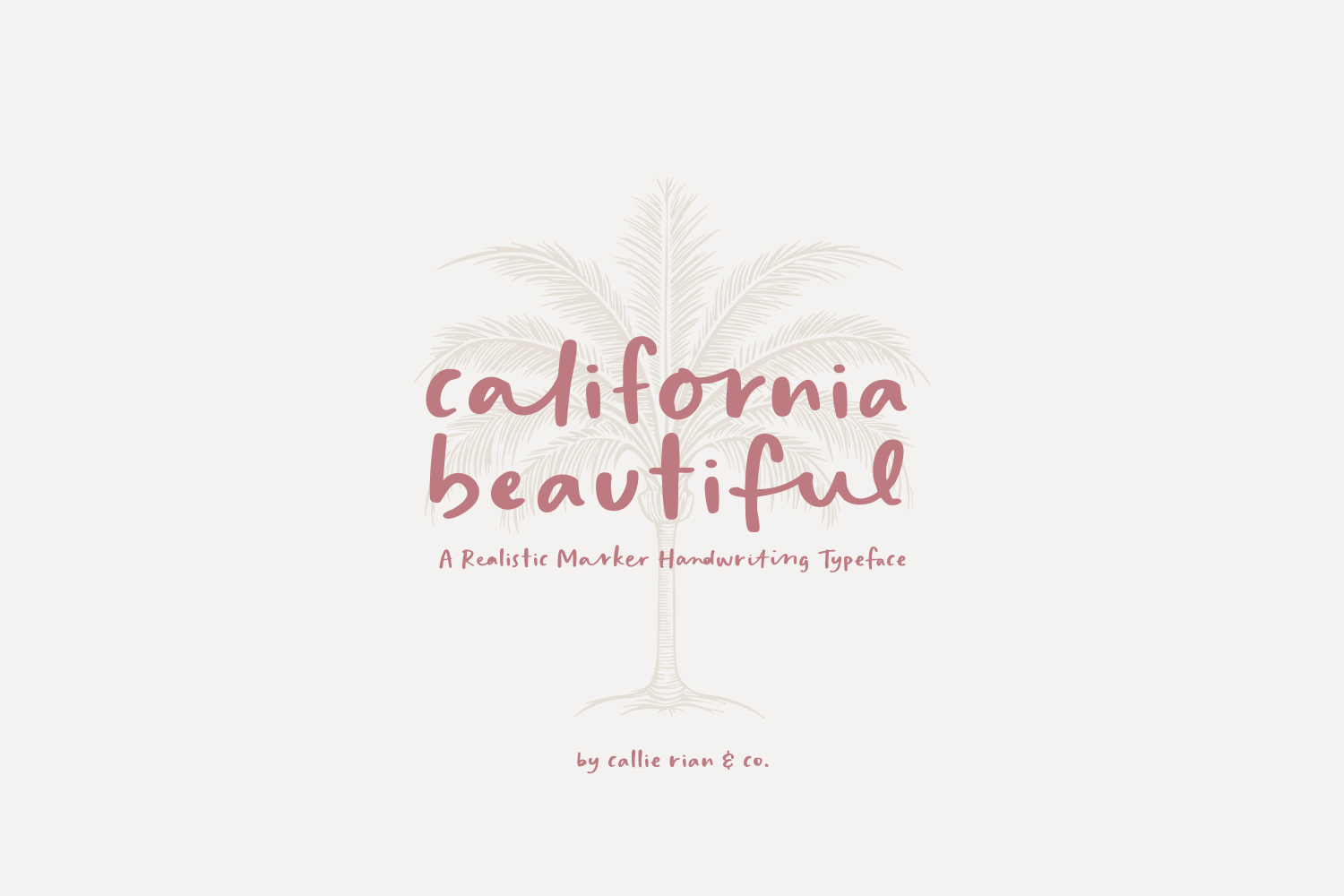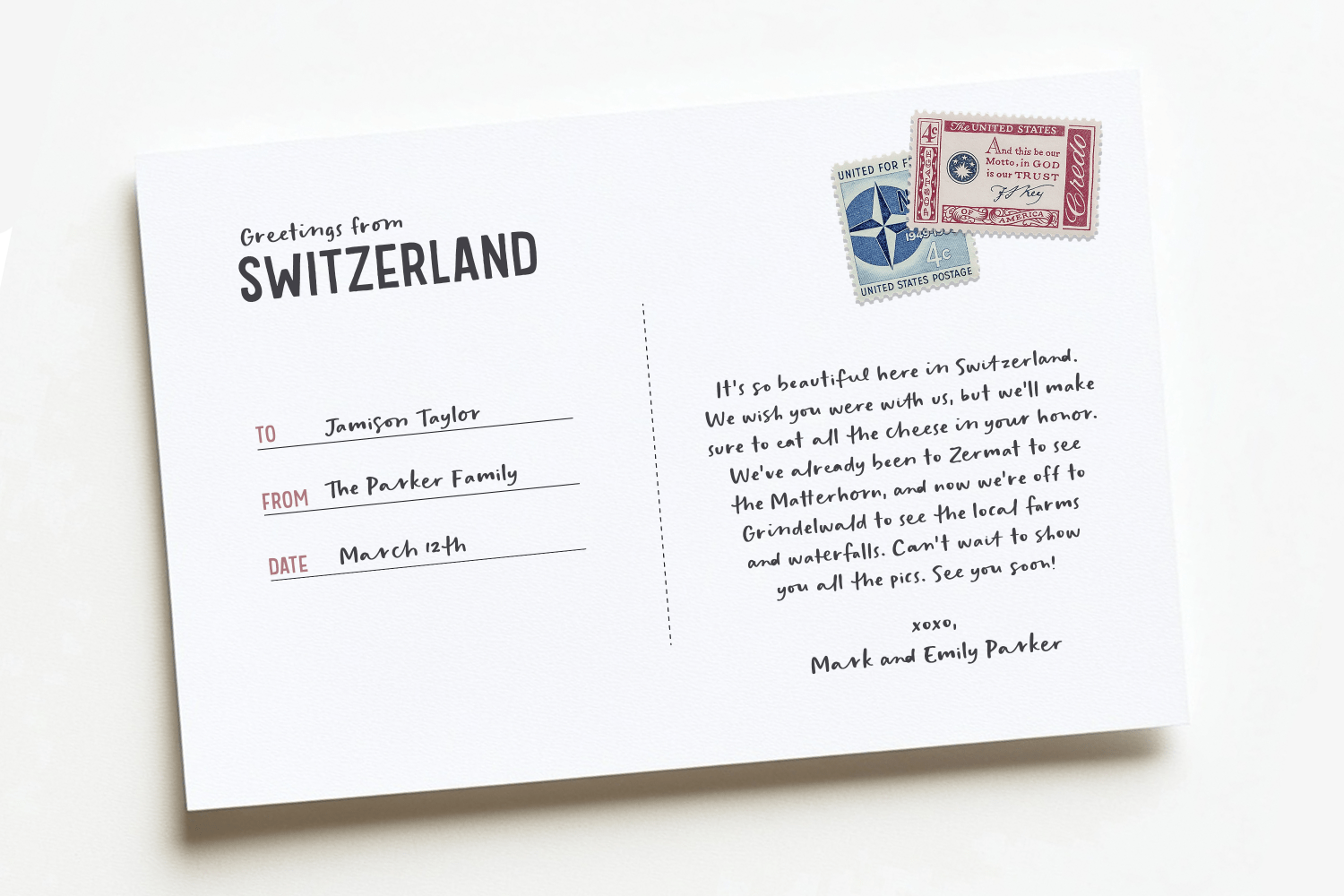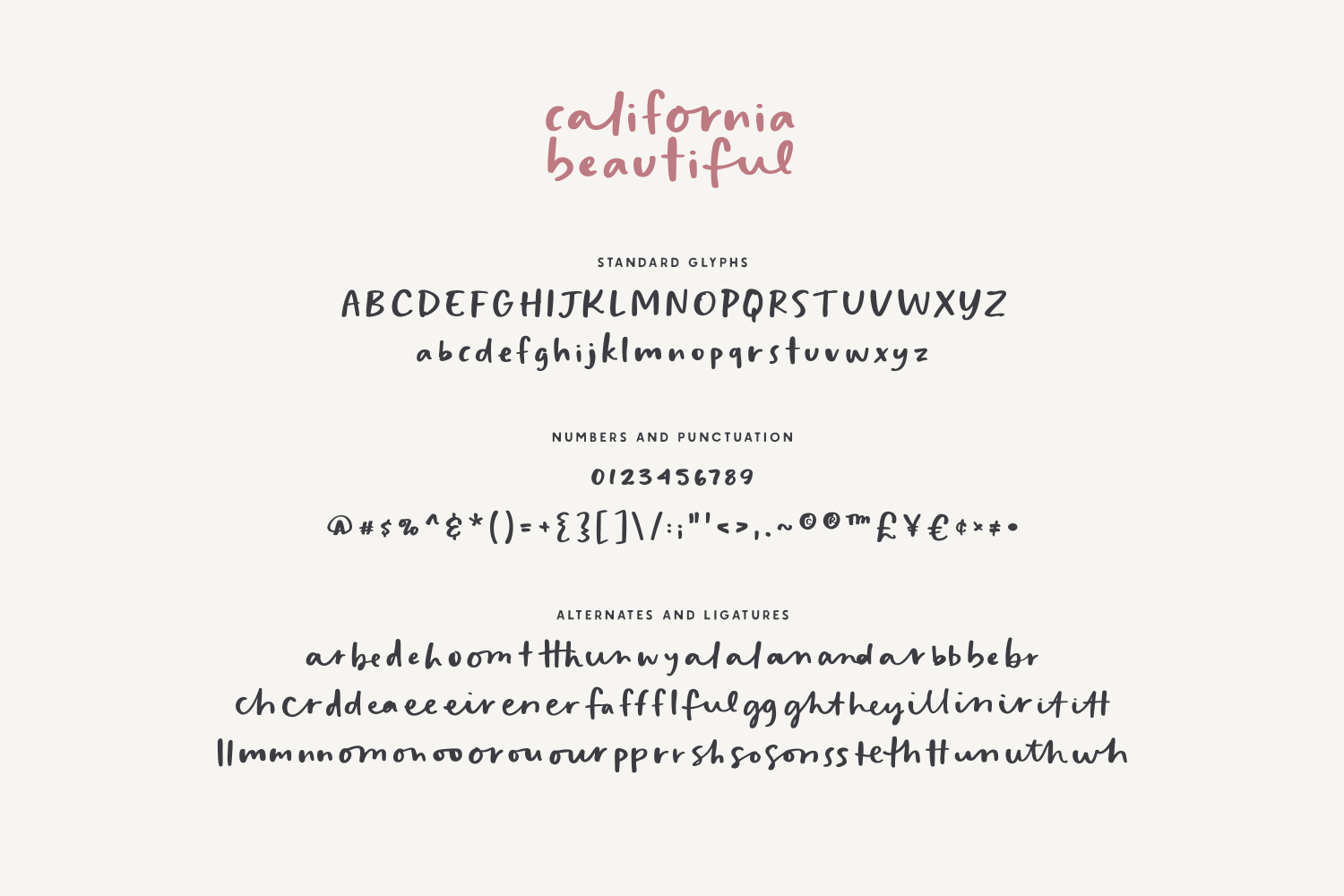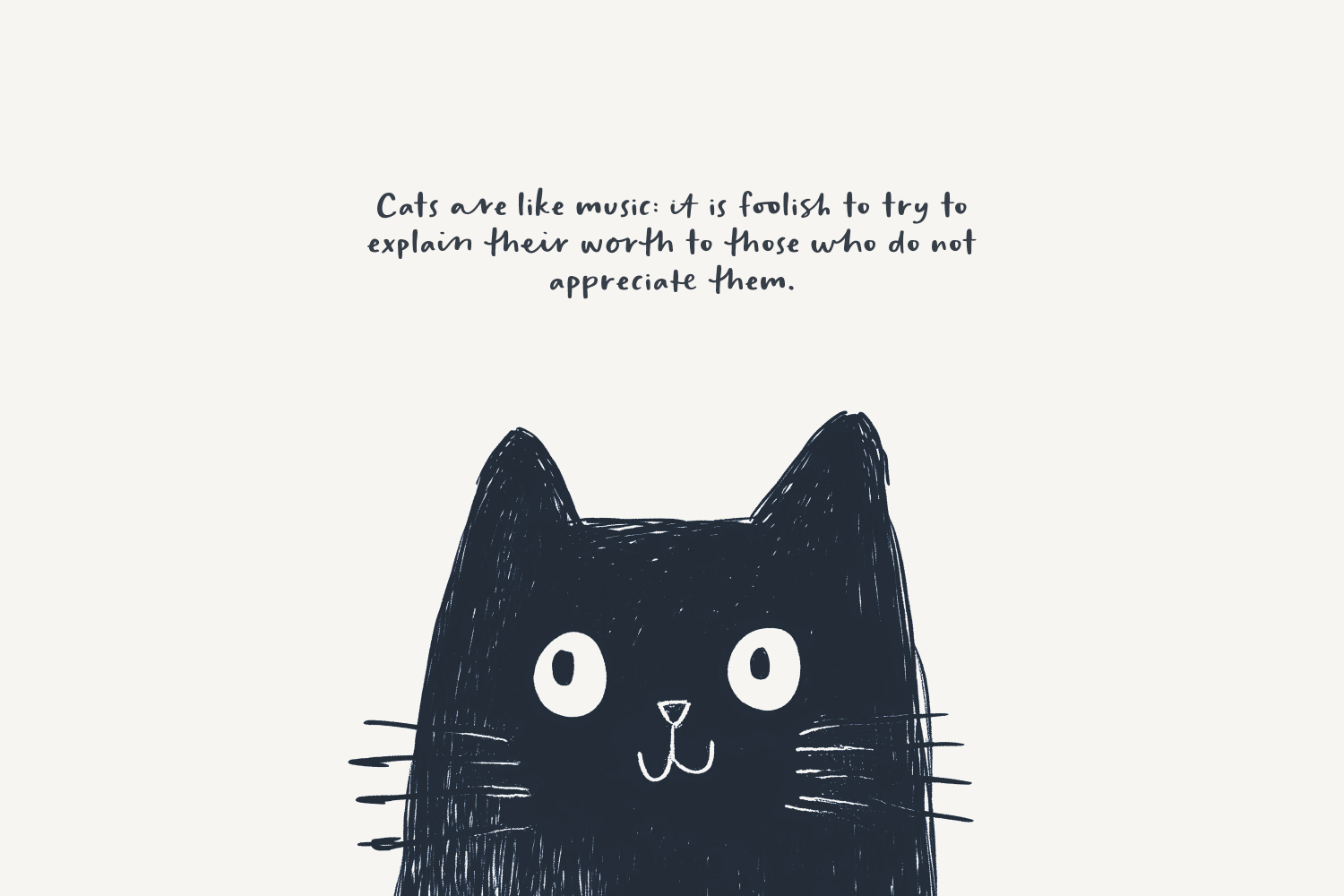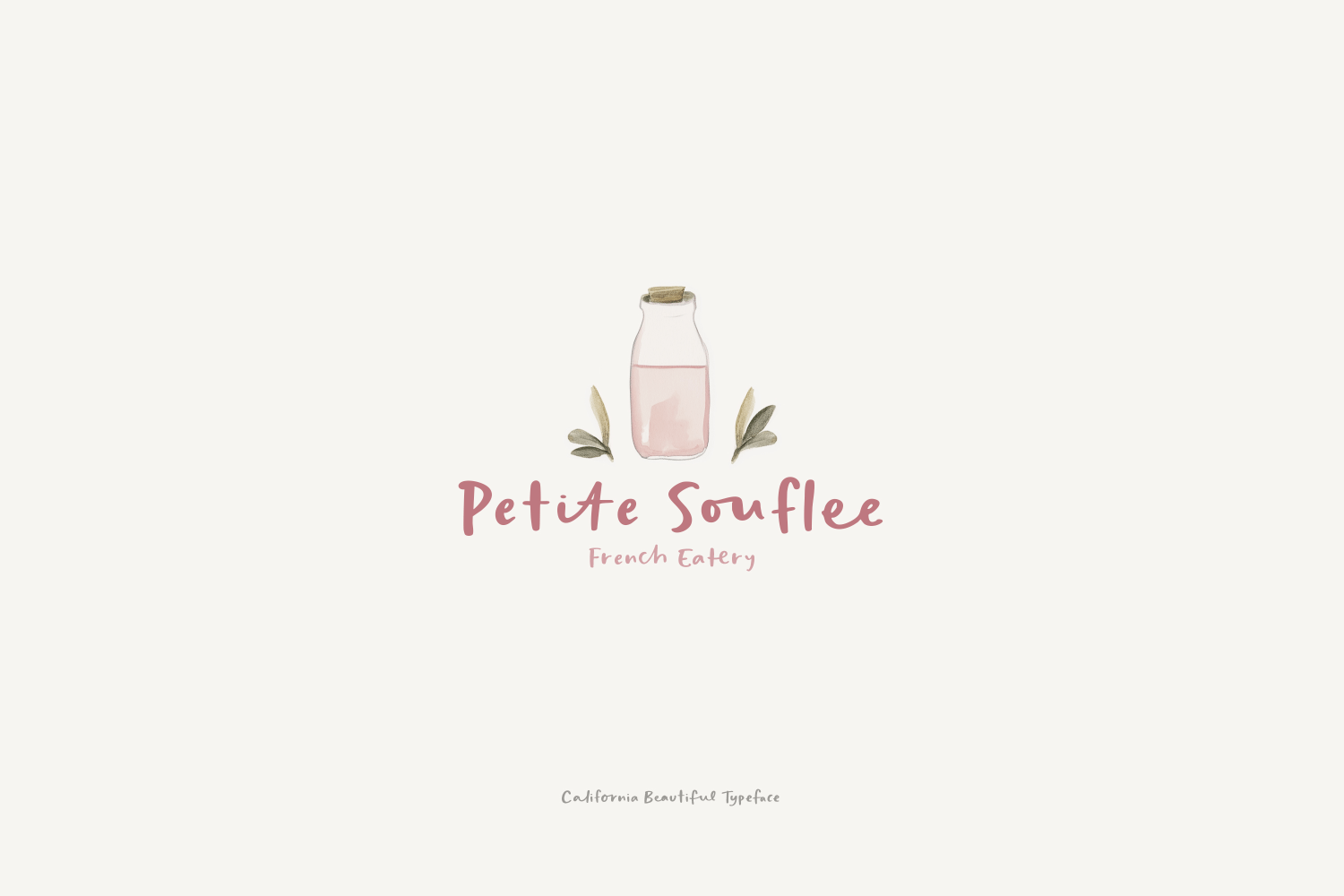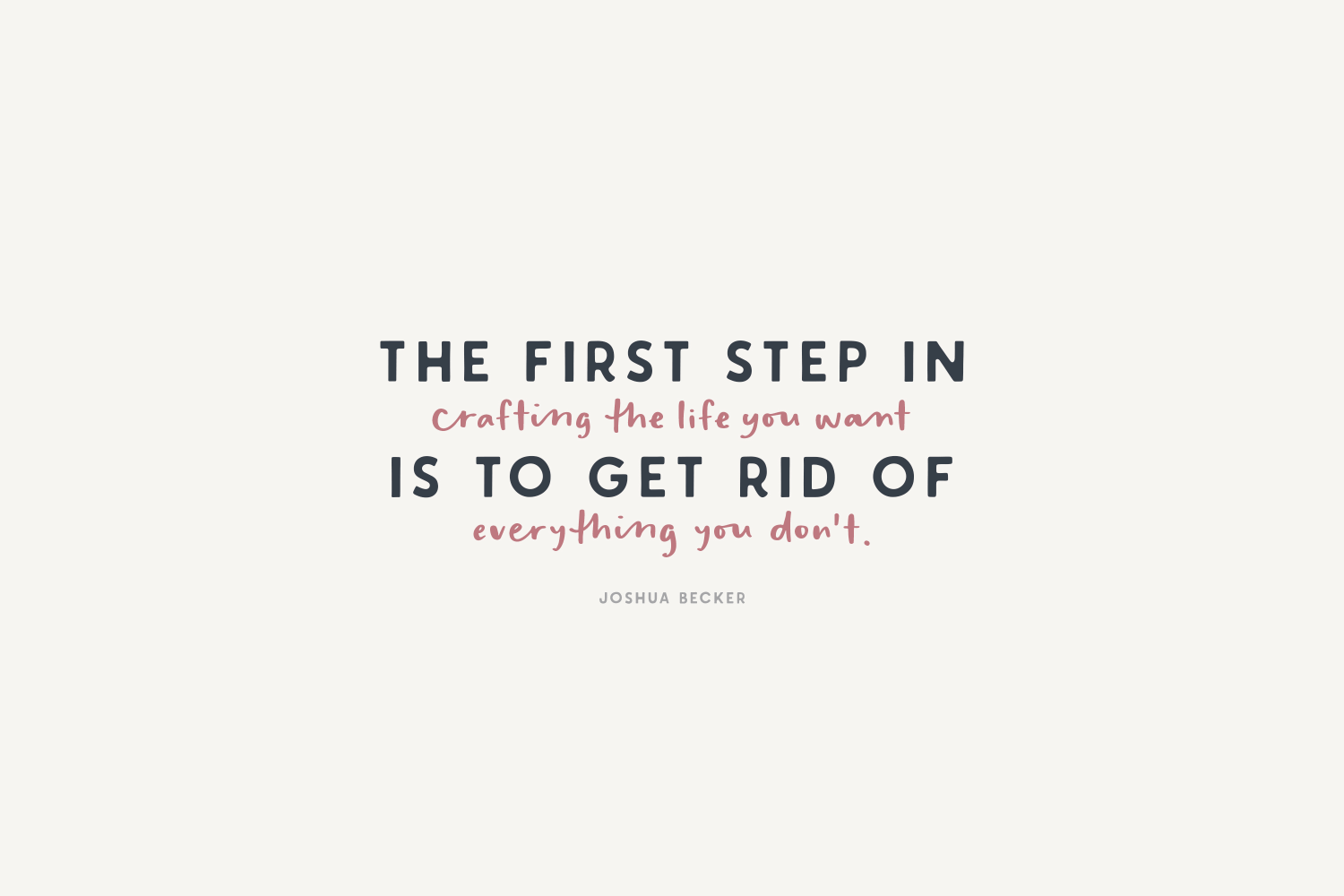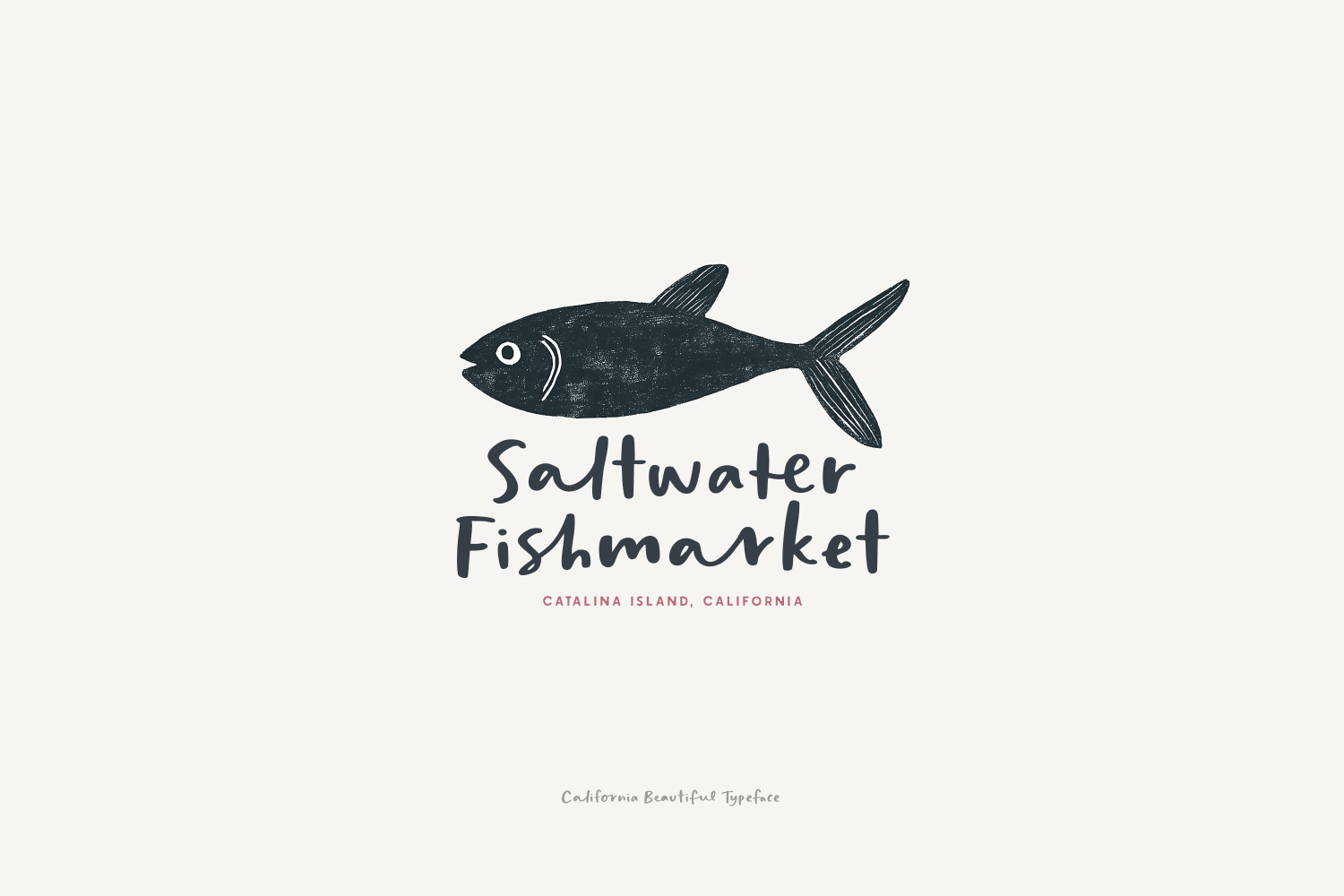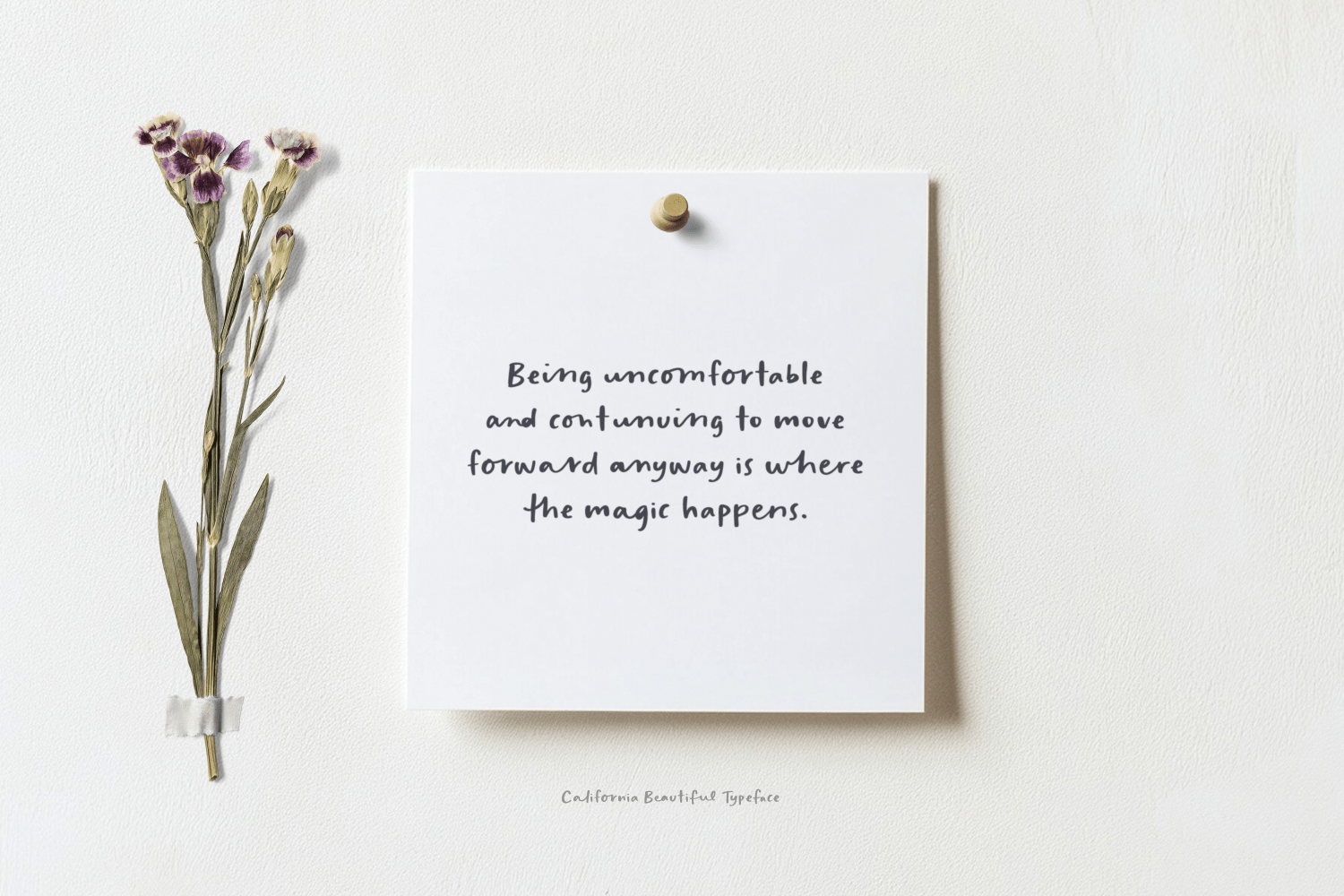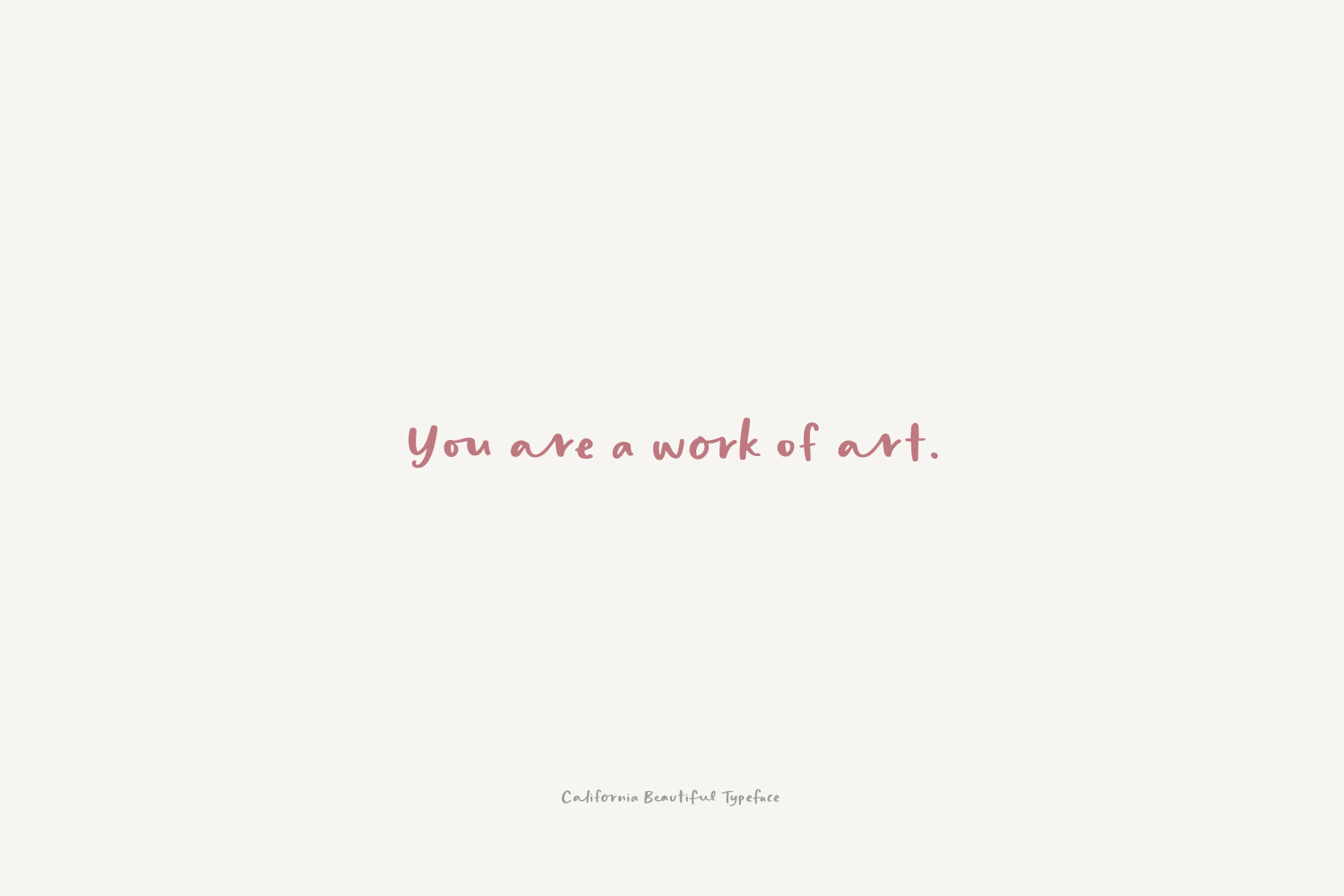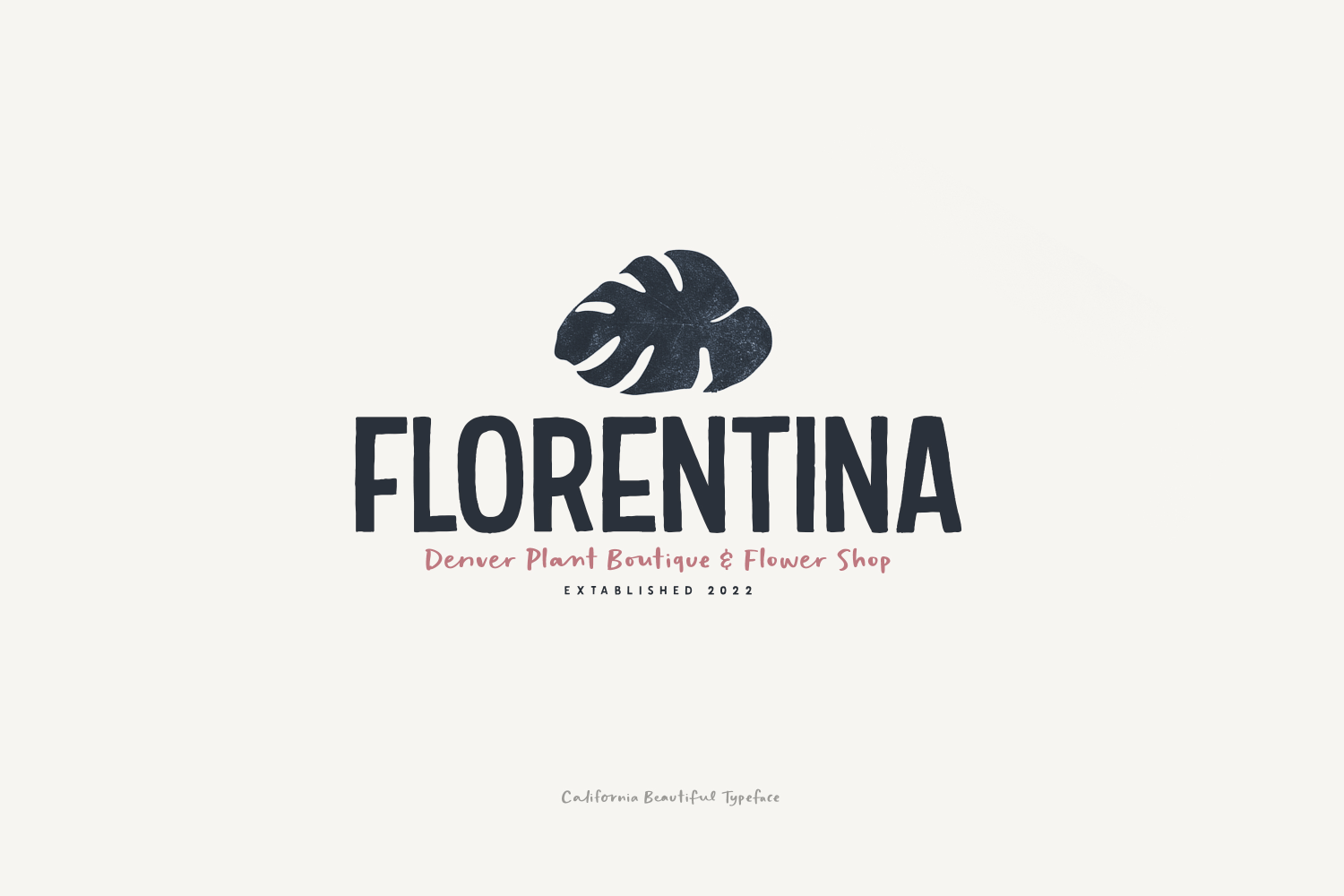
California Beautiful Typeface
Font Family by Callie Rian & Co
Introducing California Beautiful, a fun combination of both script ligatures and standard, sans-serif glyphs. The combo makes for a super casual handwriting font with a marker thickness. The best part is that you can use the uppercase and the lowercase independently, which is like having TWO fonts in one handy package. She works so well for subtext, quotes and logos, but also shines on menus, invites, apparel and more!
• Including over 60 Alternates & Ligatures